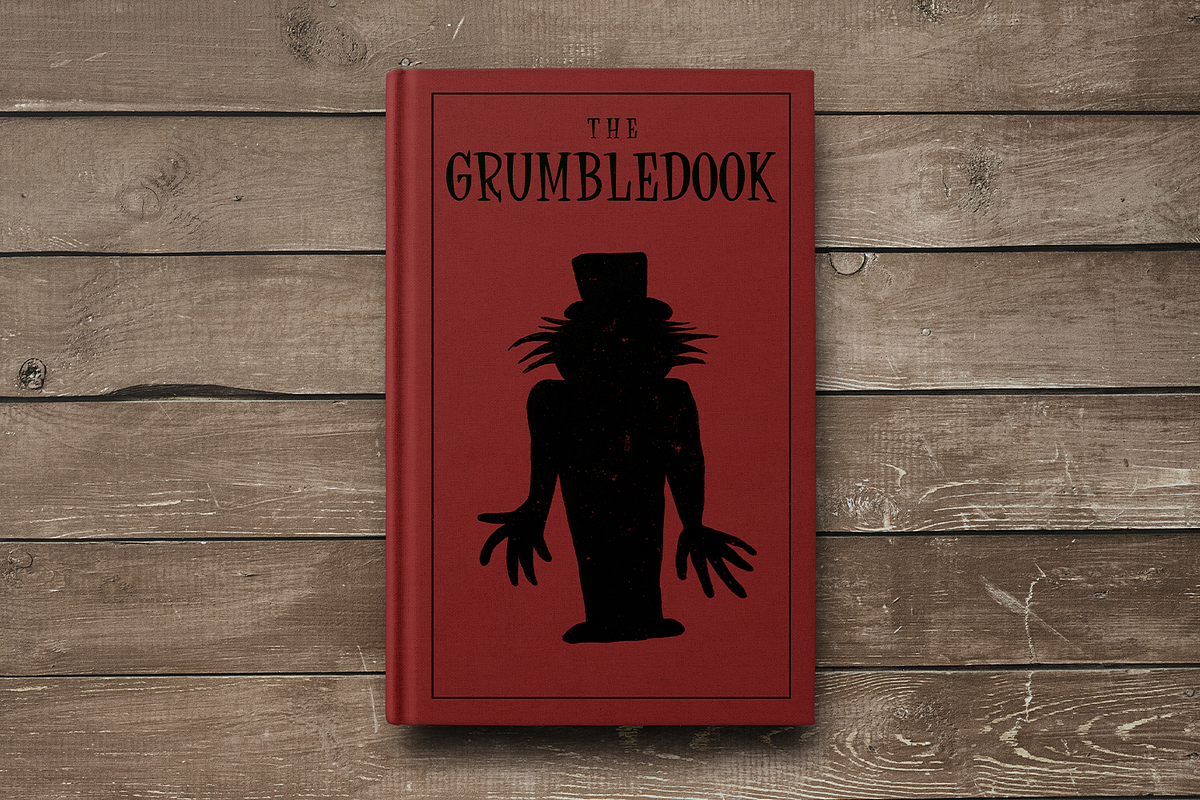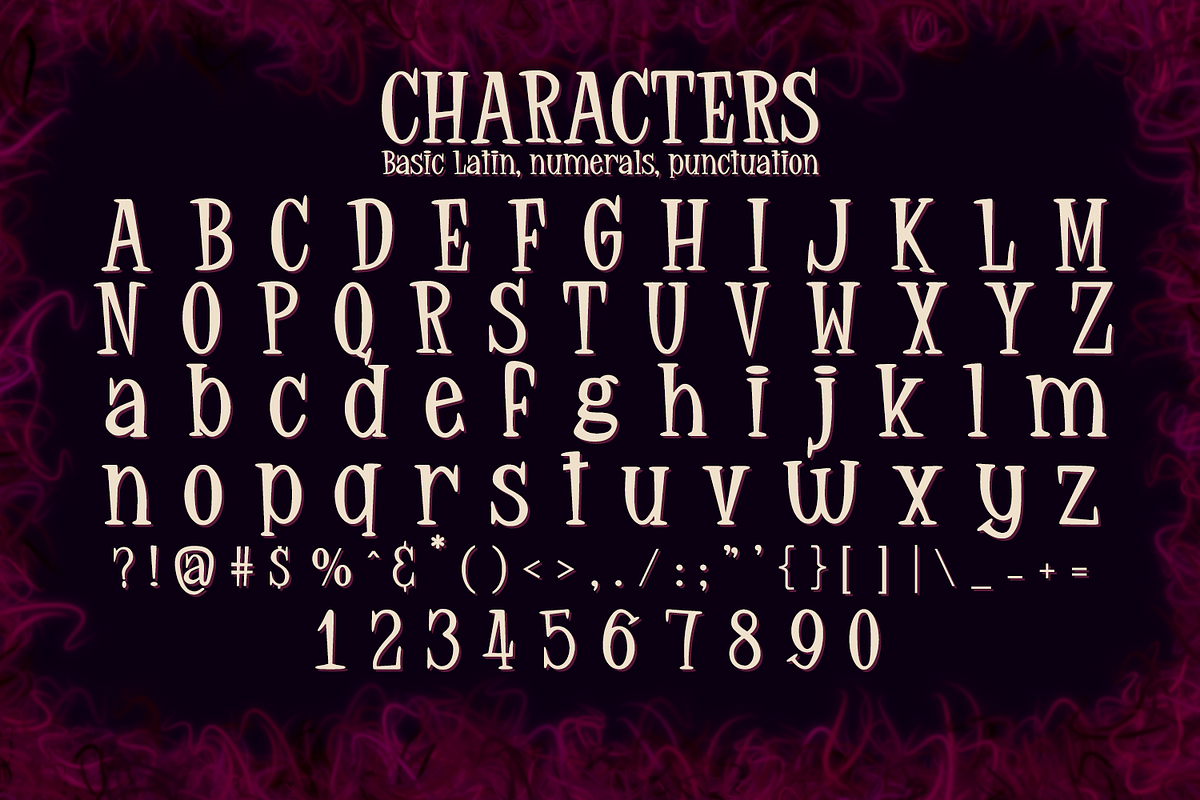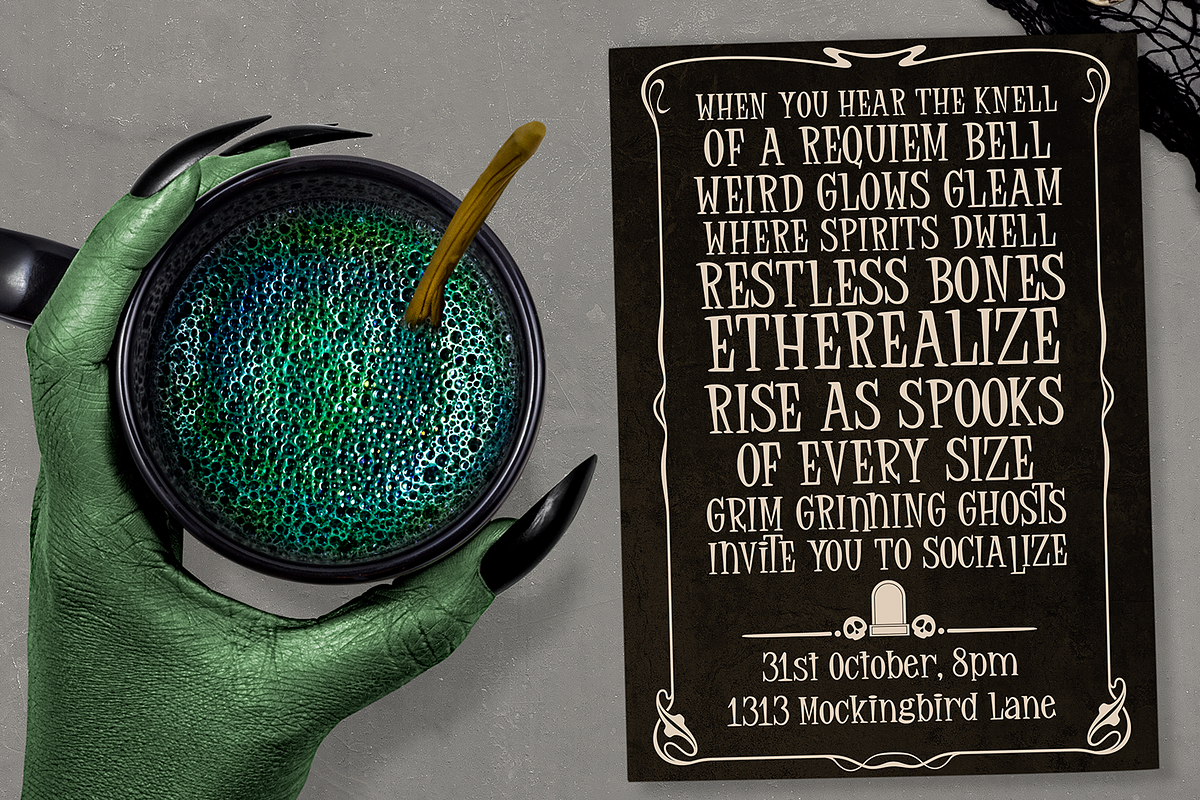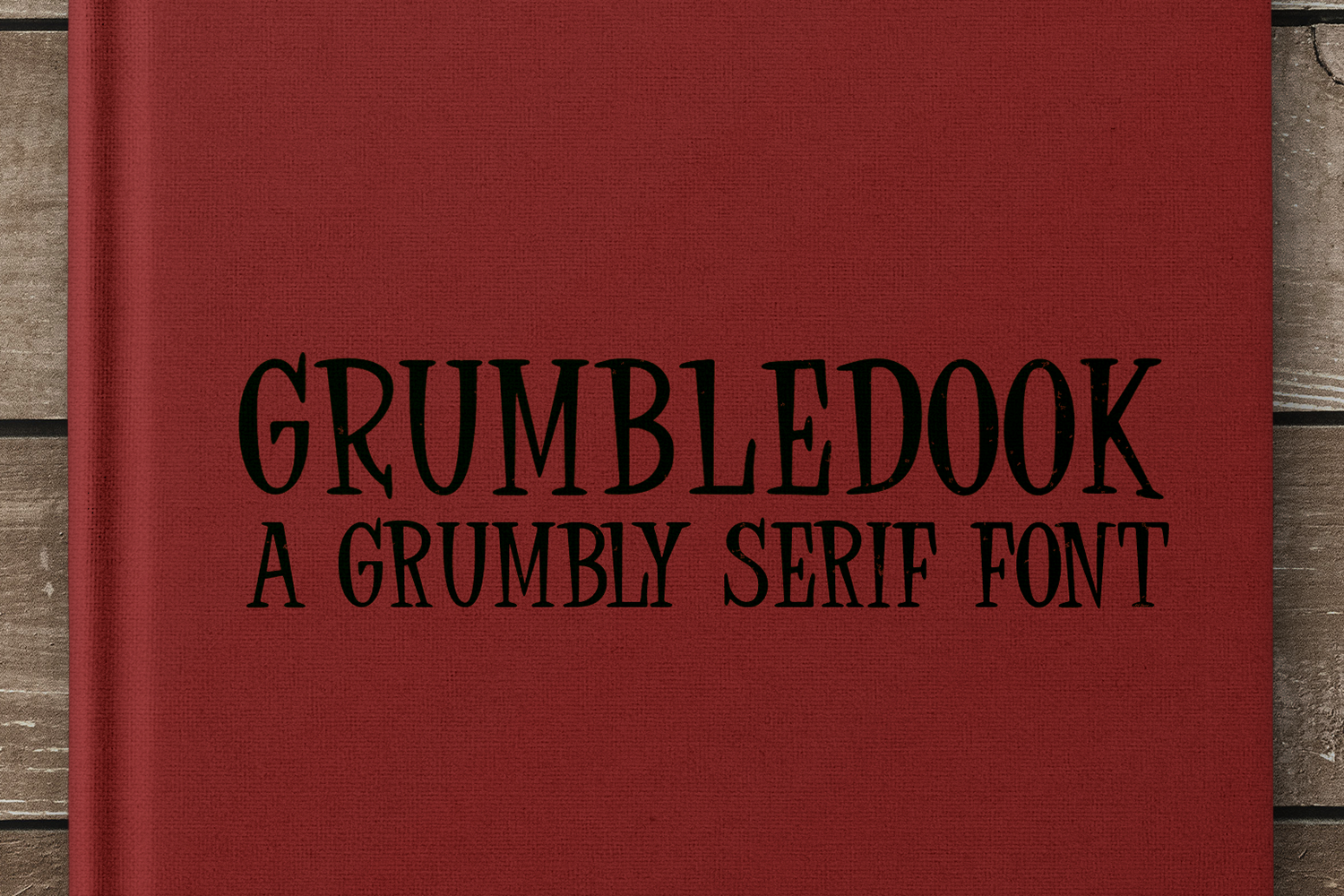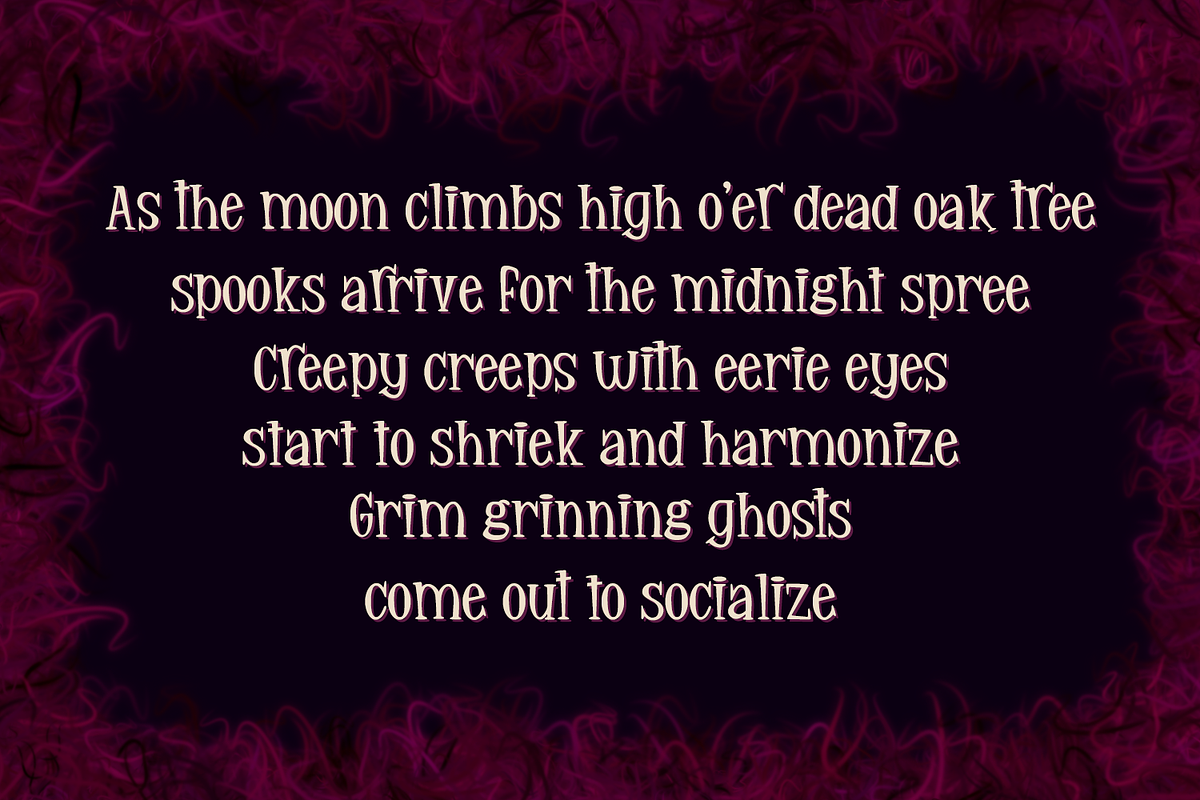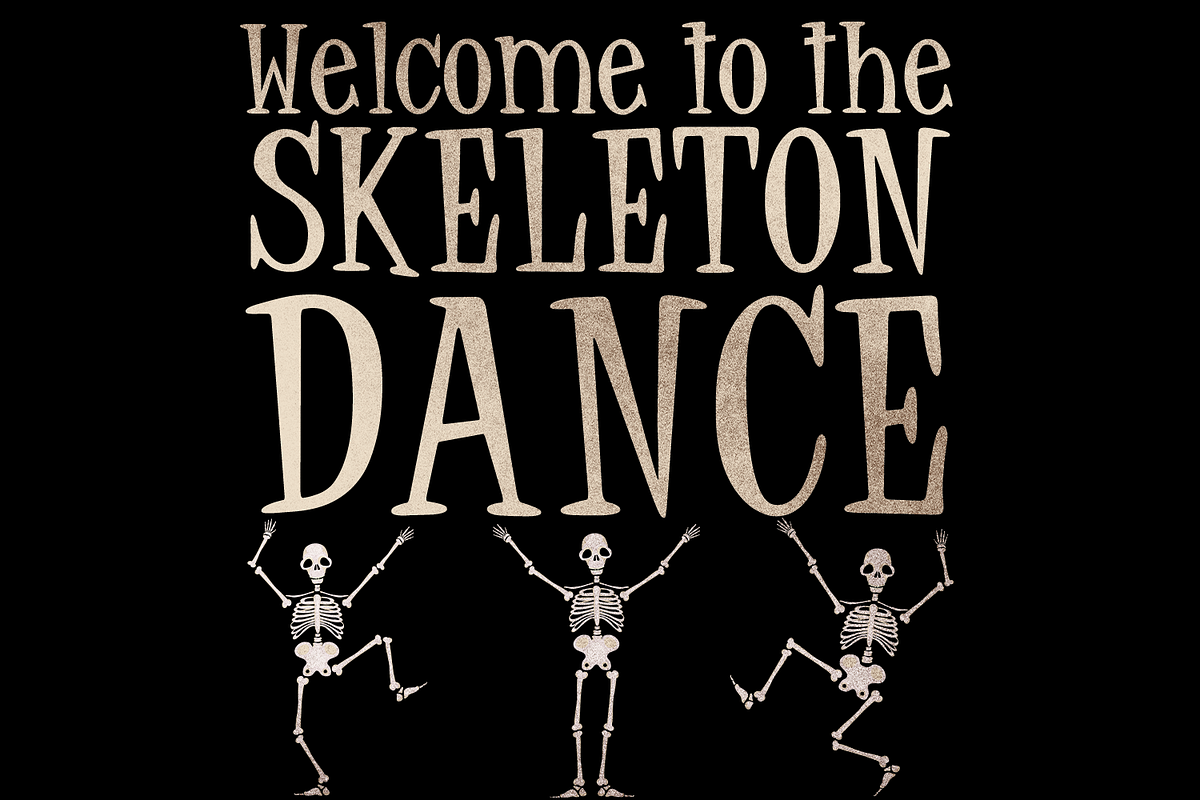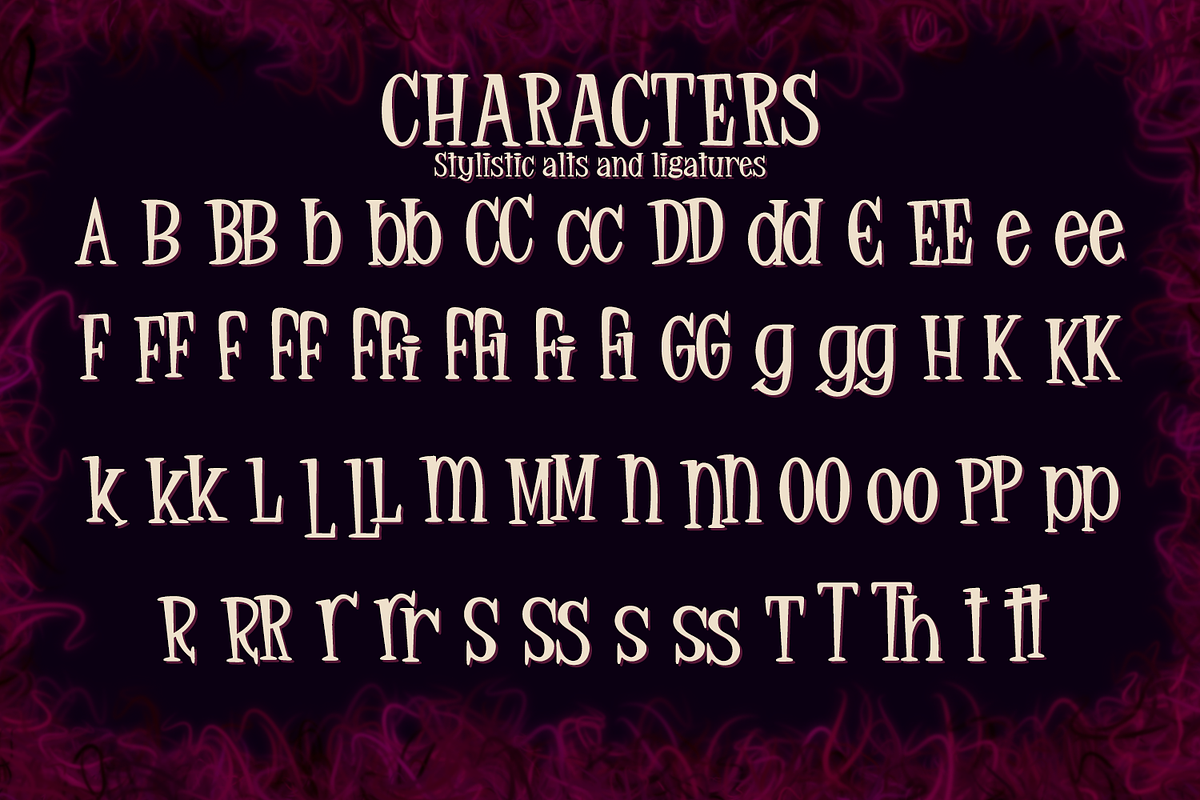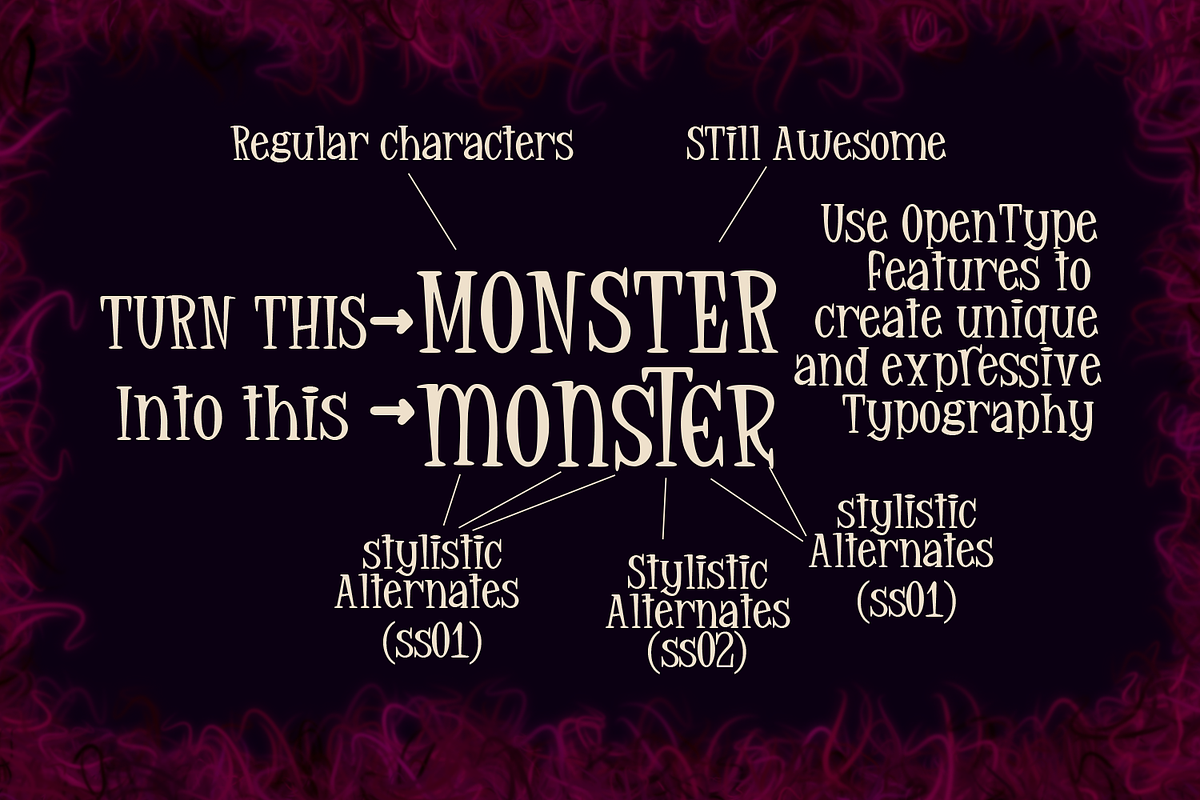
Grumbledook - a grumbly typeface
Meet Grumbledook, a monstrously grumbly typeface!
Grumbledook is a quirky serif typeface, perfect for your next project! Use it on shuddersome shirts, insidious invitations, petrifying printables and so much more!
Included in this font are standard ligatures, stylistic alternates as well as discretionary ligatures so you can use Open Type to create stunning, unique typography.